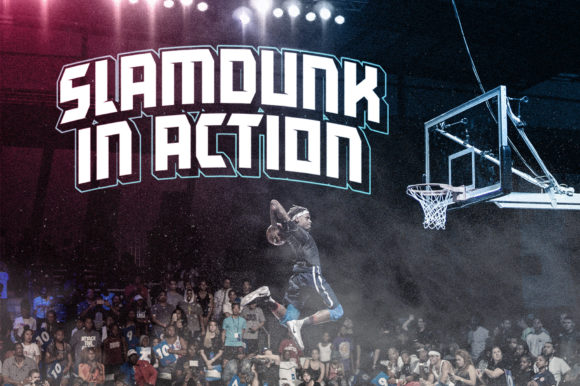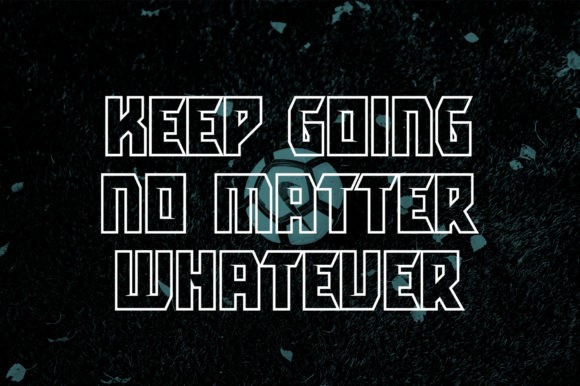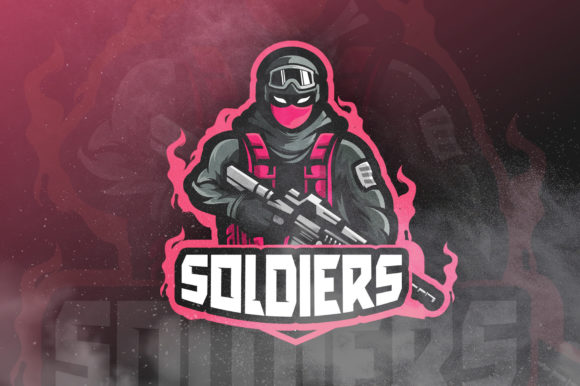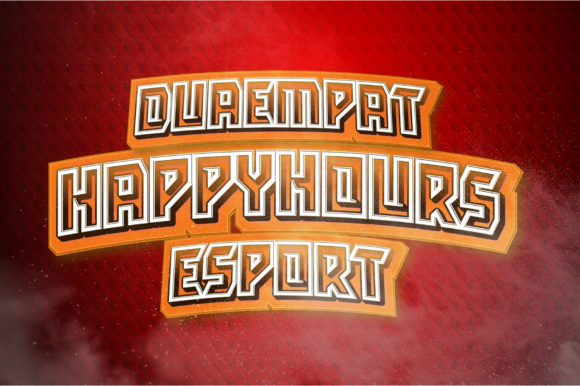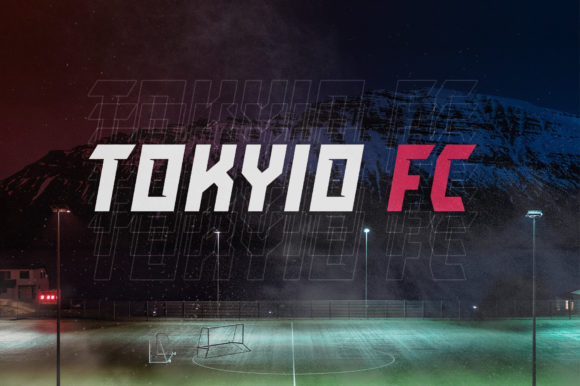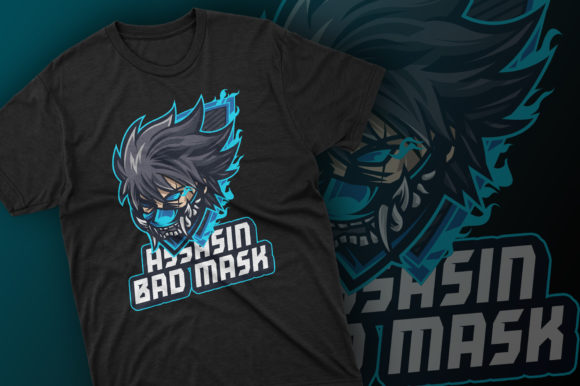
Rev Up Your Designs with a Blast from the Past
You know that moment when you’re staring at a blank canvas, and suddenly, a spark of creativity ignites? The ideas start flowing, and you envision the perfect visual representation of your concept. That’s exactly what happened when I first laid eyes on the Atomos Font. This bold, retro styled display font is the perfect addition to any design, instantly elevating it to the next level.
The Atomos Font is more than just a font – it’s a statement piece that adds a touch of nostalgia and modernity to your creations. Whether you’re a seasoned designer or just starting out, this font is a valuable asset to your toolkit. Its unique blend of style and functionality makes it a go-to choice for designers looking to add some excitement to their work.
Atomos Font Key Features
- Unique Characteristics: Atomos Font features a unique blend of geometric and organic elements, giving it a distinctive and modern look that is perfect for creative and innovative designs.
- Font Style: Atomos Font is available in multiple styles, including Regular, Bold, Italic, and Bold Italic, allowing designers to add depth and variety to their designs.
Atomos Font Review
At first glance, the Atomos Font seems like a stylish and modern sans-serif typeface. It has a clean, minimalist aesthetic that would work well in various digital design applications, such as branding, advertising, and UI/UX design. ✨ The font’s geometric shapes and clean lines give it a futuristic feel that’s perfect for tech-savvy brands.
One of the standout features of Atomos Font is its wide range of weights and styles, making it a versatile choice for designers. ✨ It includes a total of 14 font weights, from light to black, as well as italic and bold italic styles. This allows designers to create a consistent visual identity across different design elements, from headings to body text.
What’s Missing?
- ⚠️ Limited language support: The Atomos Font is currently only available in Latin-based languages, which may limit its use in international design projects.
- ⚠️ No true italics: While the font includes italic styles, they may not be as elegant as true italics, which can be a drawback for designers who value high-quality typography.
Overall, I think the Atomos Font is a solid choice for designers who need a modern and versatile sans-serif typeface. While it has some limitations, its clean design and wide range of weights make it a great option for a variety of design applications. However, designers working on international projects or requiring high-end typography may want to consider alternative options.
Tips for Getting the Most Out of Atomos Font
Atomos Font is a versatile font that can be used for a variety of applications, including logos, headings, and body text. Here are a few tips for getting the most out of it:
- Use Atomos Font for headings and titles to create a cohesive brand identity.
- Experiment with different font sizes and styles to add visual interest to your text.
- Pair Atomos Font with other fonts to create a unique and visually appealing typography.